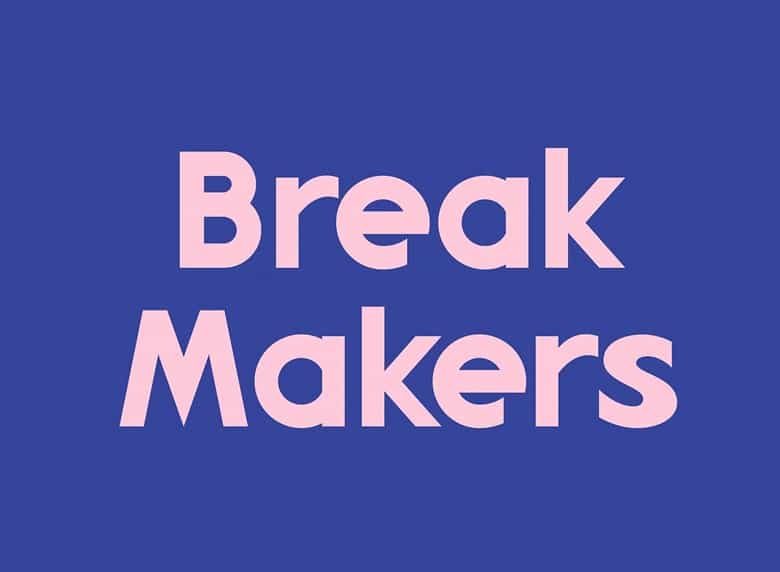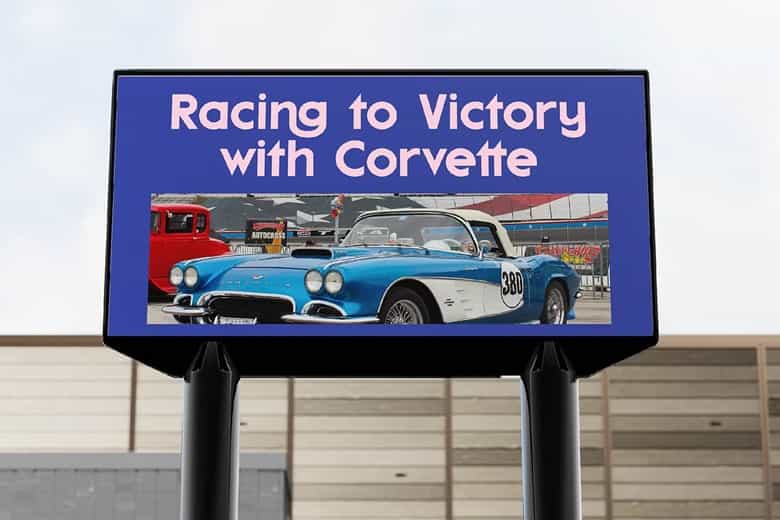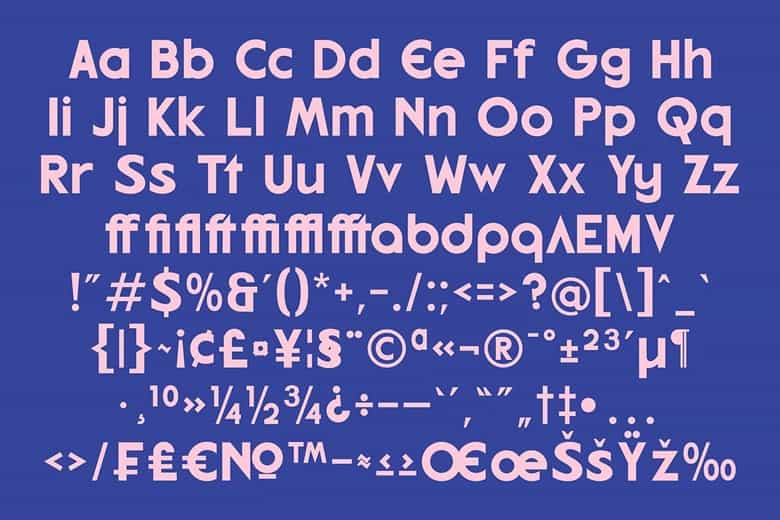
Break Makers combines traditional sans serif design principles with contemporary style to deliver minimalistic results. The font uses neat perfect and flat lines which show precision and creates a great design solution across various tasks. The small changes in line thickness and decorative features help Break Makers look polished and adaptable while meeting today’s design standards without compromising readability.